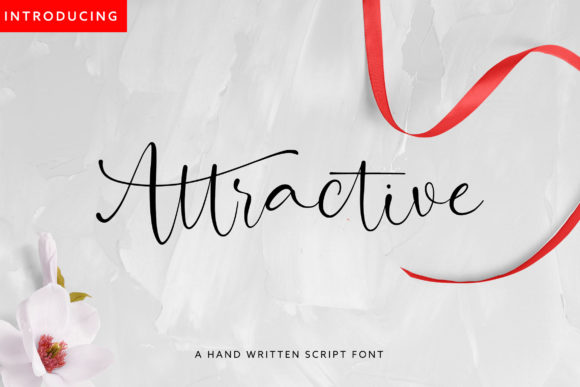
The Quest for the Perfect Font: Discovering Attractive
I’ll never forget the design project that led me to fall in love with the Attractive font. I was working on a whimsical branding project for a small bakery, and I was struggling to find the perfect font to capture their playful yet elegant vibe. That’s when I stumbled upon Attractive, a sweet, round lettered handwritten font that stole my heart. In this article, I’ll share my journey with Attractive, its features, and how to make the most of it in your designs.
First Impressions: What I Love About Attractive
Attractive is more than just a font – it’s a design experience. Here are the things that I love about it:
• ✨ PUA encoded for easy access to glyphs and swashes
• ✅ Varying baseline for a natural, handwritten feel
• ✨ Smooth lines and gorgeous glyphs for added visual interest
• ✅ Stunning alternates to keep your designs fresh and exciting
The Not-So-Perfect: Small Quirks and Limitations
While Attractive is an amazing font, it’s not without its quirks. Here are a few things to keep in mind:
• 🤔 Limited use in very formal or corporate designs – Attractive is best suited for creative, playful projects
• ⚠️ Some glyphs may require manual adjustment for optimal spacing and alignment
The Story Behind Attractive
Attractive was designed with the intention of creating a font that would bring a touch of warmth and personality to any design project. Inspired by the beauty of handwritten typography, the designer aimed to create a font that would be both elegant and approachable. The result is a font that is perfect for creative projects, from branding and packaging to invitations and social media graphics.
What is Attractive best used for? Attractive is best used for creative, playful projects such as branding, packaging, invitations, and social media graphics.
Is Attractive suitable for formal or corporate designs? No, Attractive is not suitable for formal or corporate designs. It’s best used for projects that require a playful, whimsical touch.